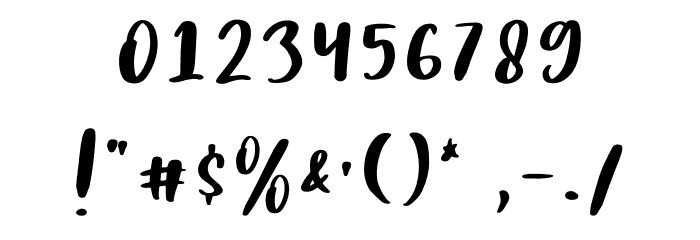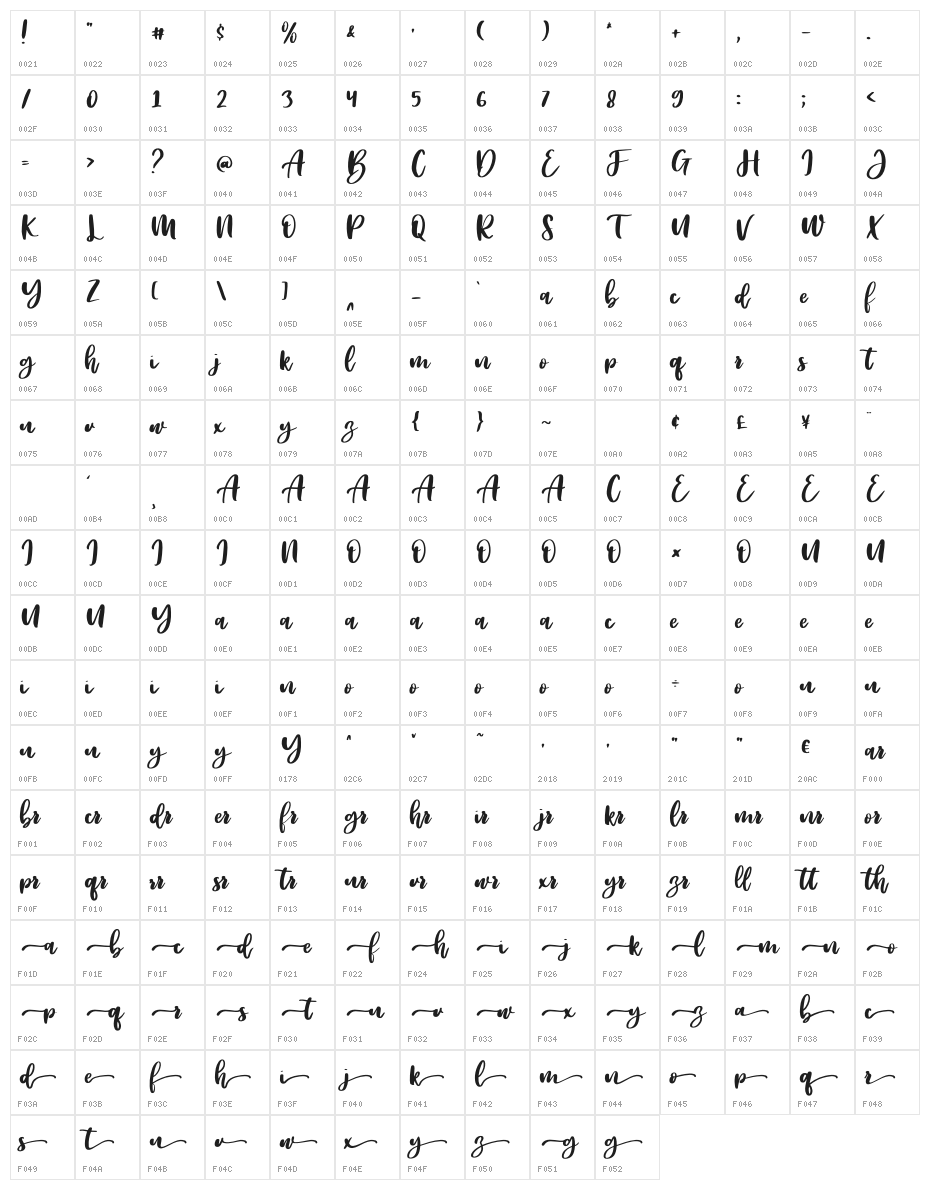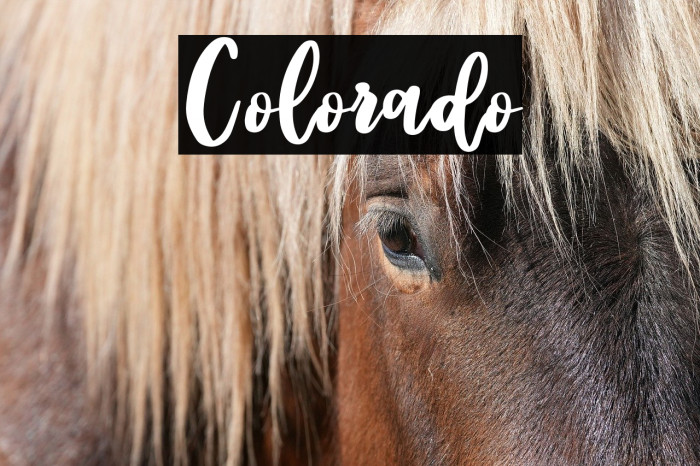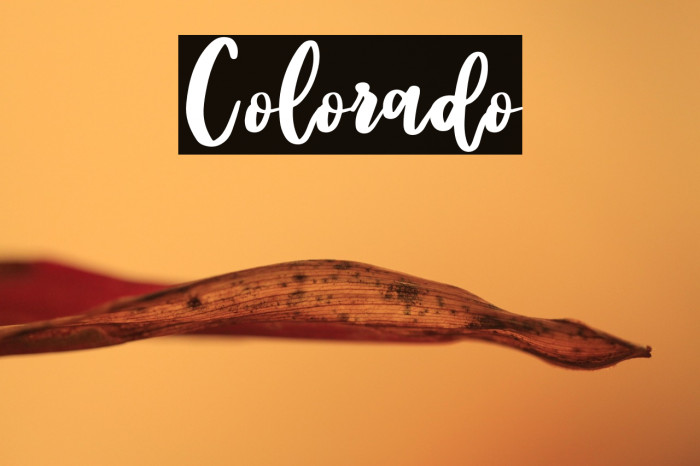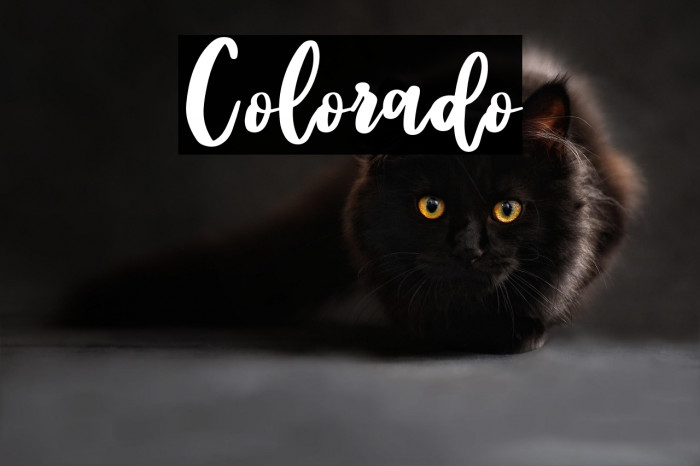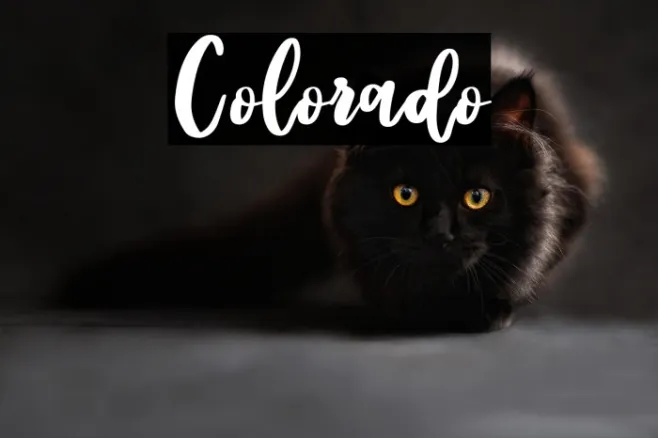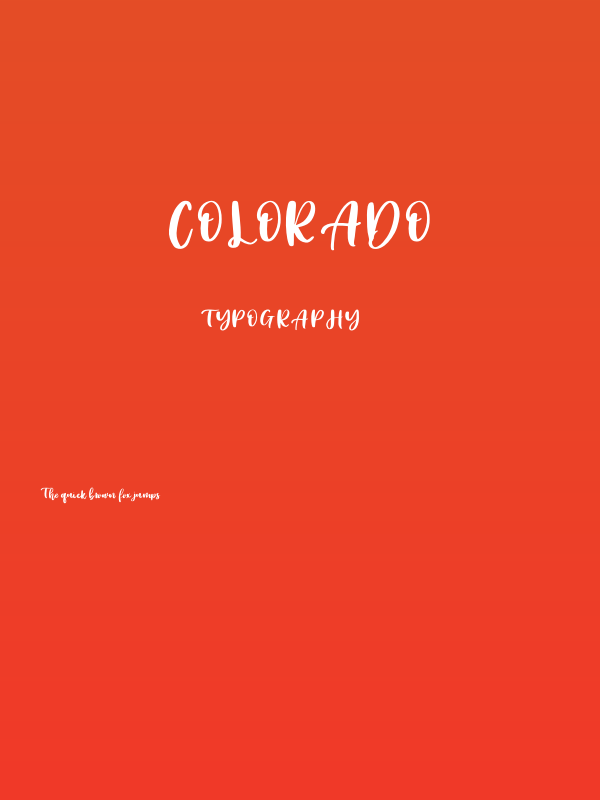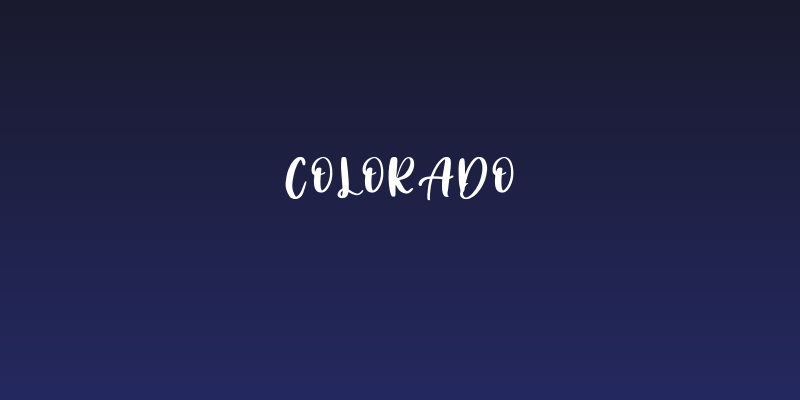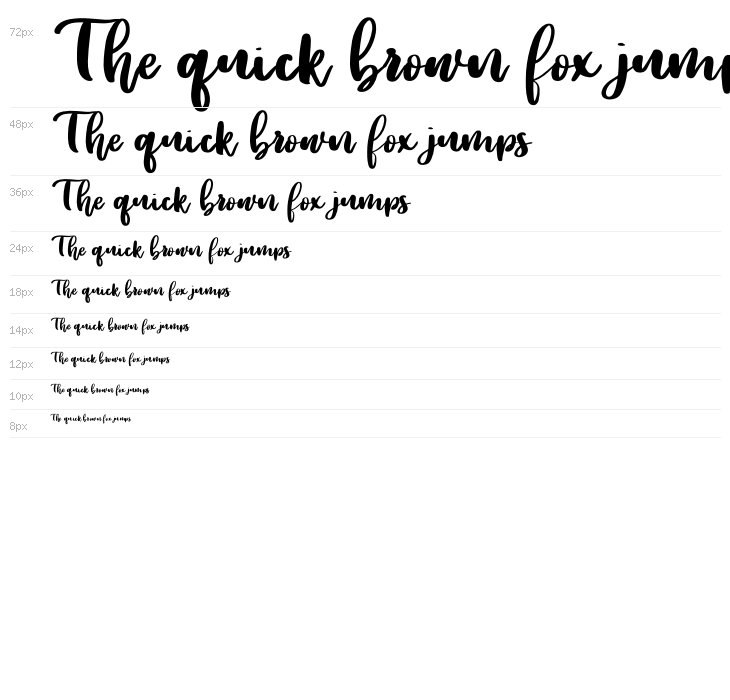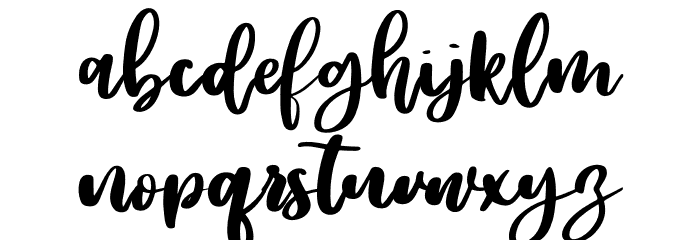
Colorado Font
Colorado Description
This font features a bold and expressive handwritten style, characterized by its fluid and dynamic strokes. The letters exhibit a playful yet elegant flair, with varying thickness that adds a sense of movement and personality. The uppercase letters are slightly more structured, while the lowercase letters maintain a casual and approachable feel. Numbers and special characters are consistent with the overall style, ensuring a cohesive look across all text. This font is perfect for projects that require a personal touch, such as invitations, greeting cards, or branding materials.
| Proposed Projects | Ideal for invitations, greeting cards, branding, and creative projects that require a personal touch. |